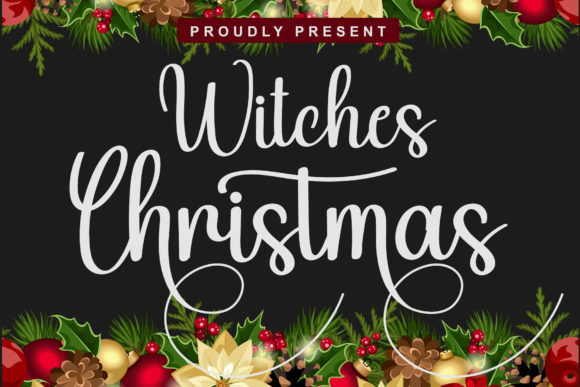
Welcome to the mysterious realm of Witches Christmas Font, a captivating script font that casts a magical spell on your designs. Immerse yourself in the enchanting world of handwritten elegance, and unleash your creativity with this beautiful creation from YanStudio.
Witches Christmas is a font that beckons you to explore its ethereal beauty, with each stroke echoing the delicate touch of a calligrapher's hand. Its graceful curves and flourishes evoke a sense of timeless charm, adding a touch of sophistication and elegance to your projects. Experience the allure of script typography, where each letter dances across the page with a life of its own.
As you craft your designs, let Witches Christmas become your secret weapon for creating captivating signatures. With this font, your words will leap off the page, imbued with a personality that resonates with your audience. Its unique style adds a personal touch to your typography, making it ideal for crafting logos, branding, invitations, greeting cards, and other marketing materials that demand attention.
Beyond its visual appeal, Witches Christmas Font possesses a technical mastery that makes it a joy to use. It's PUA encoded, ensuring seamless access to all glyphs and swashes. Unleash your creativity and explore the endless possibilities, knowing that this font is equipped to handle your most ambitious projects.
Embrace the magic of Witches Christmas Font, and let your designs take flight. Its captivating beauty will leave a lasting impression on your audience, whether you're creating digital masterpieces or tangible works of art. Experience the power of script typography and elevate your designs to new heights.